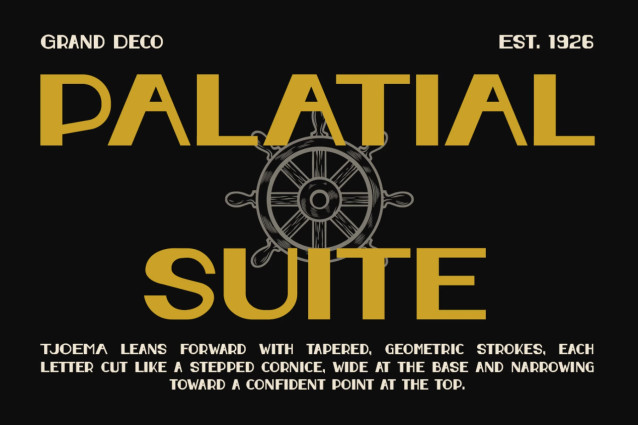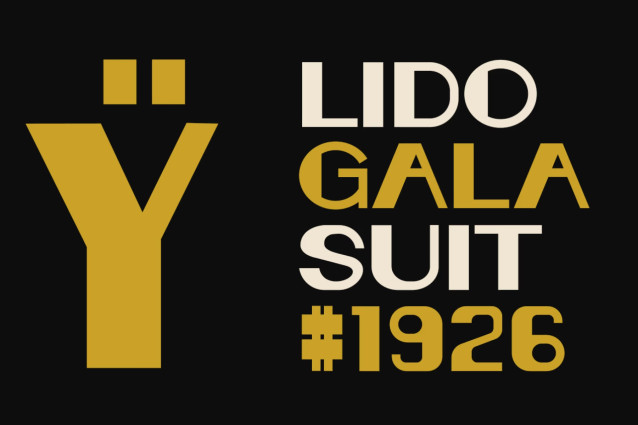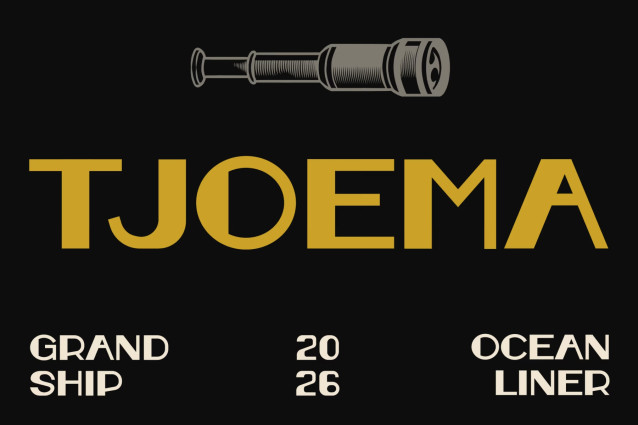
Vintage Font TJOEMA — Bold Retro Style, Golden Age Energy
Vintage Font TJOEMA brings bold retro energy to modern design. First, its strong geometric shapes create an instantly recognizable look. Meanwhile, the elegant curves add a classic touch. Together, these details create a stylish vintage aesthetic. As a result, TJOEMA feels bold, clean, and full of character. It works perfectly for logos, posters, packaging, apparel, signage, and branding.
Retro Style. Endless Possibilities.
Moreover, TJOEMA is easy to adapt across many creative projects. For example, use it for travel graphics, cruise branding, restaurant signs, vintage advertisements, and editorial layouts. In addition, it suits graphic designers, brand designers, apparel creators, poster artists, and content creators. Whether you need a powerful headline or a memorable logo, TJOEMA adds instant personality. Plus, its bold forms help important words stand out.